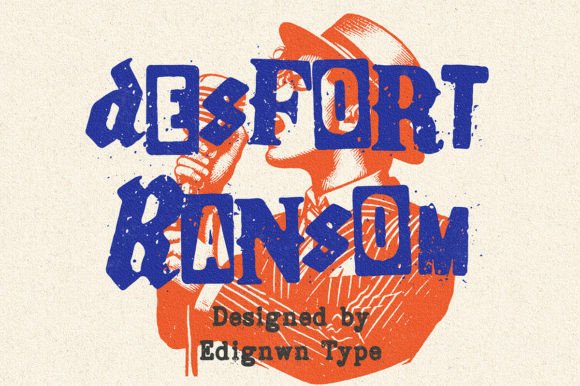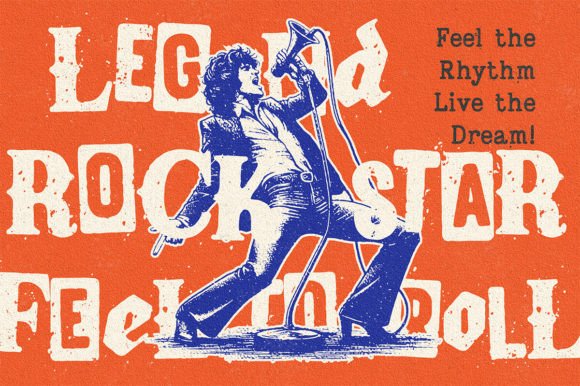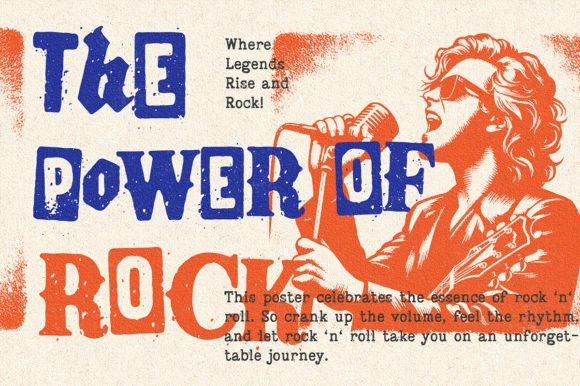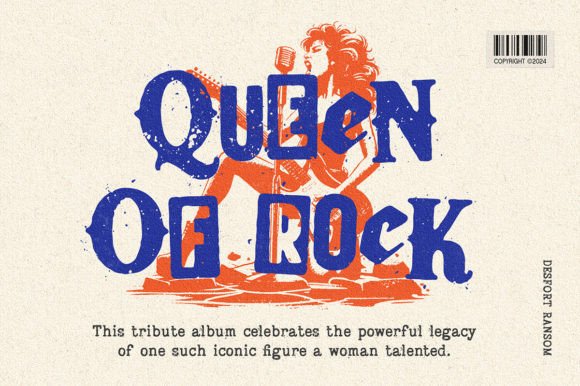
Desfort Ransom Font
About the Desfort Ransom Font
Introducing the Desfort Ransom Font, a beautifully crafted typeface designed to elevate your creative projects. Desfort Ransom is a bold and rustic font designed for ransom notes. Its rugged style makes it ideal for rock and metal music themes, giving your designs an edgy and rebellious look.
Desfort Ransom excels in headlines, posters, and branding projects requiring a strong, rebellious aesthetic. Its rugged texture works particularly well for short, impactful statements, creating a memorable visual punch. Avoid using it for body text or long-form content; its boldness and irregular letterforms hinder readability in smaller sizes.
Consider pairing Desfort Ransom with a clean sans-serif like Montserrat for a balanced contrast, or a more delicate script font such as Great Vibes for a touch of elegance that tempers its raw energy. Geometric sans-serifs could also work well, providing a modern counterpoint.
The font’s core personality is bold, rebellious, and raw. It’s perfect for brands projecting strength, edginess, or a vintage, rock-and-roll vibe.